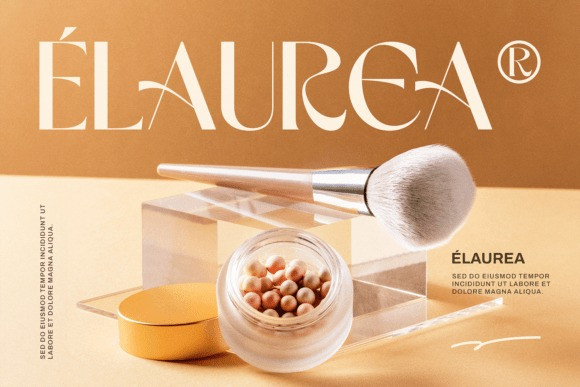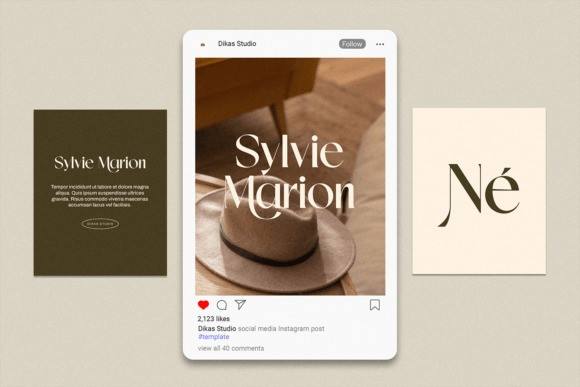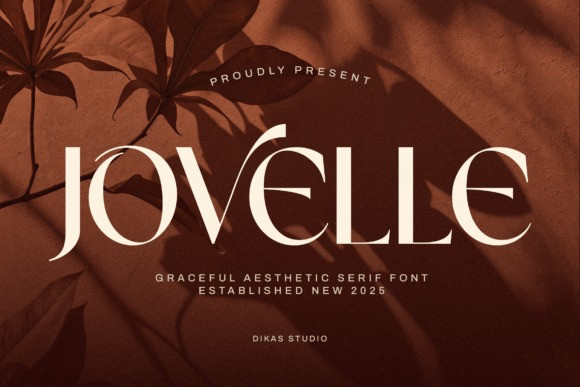
Jovelle Font
Jovelle Font – This elegant serif font exudes timeless sophistication with its refined letterforms and balanced modern flair. Jovelle combines sharp, graceful serifs with smooth, flowing curves, creating a harmonious blend of classic elegance and contemporary style. Its high contrast strokes and subtle, artistic details make it a versatile choice for luxury branding, editorials, wedding invitations, and upscale packaging. Whether displayed in bold headlines or subtle subtext, this typeface radiates a sense of refinement and creativity, perfect for designers seeking to elevate their visual projects with a distinctive aesthetic touch.